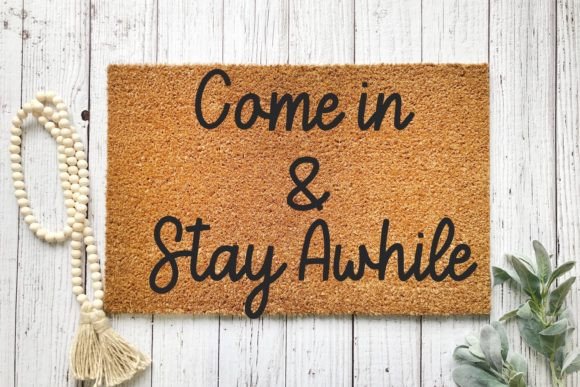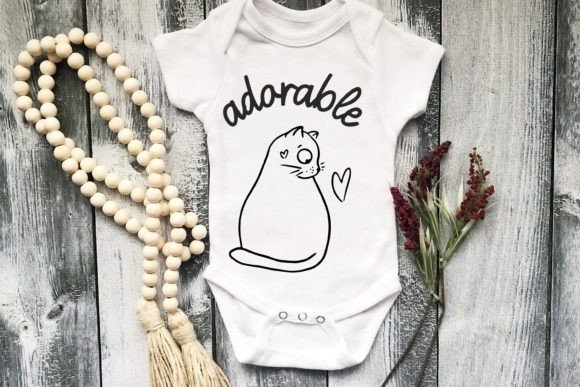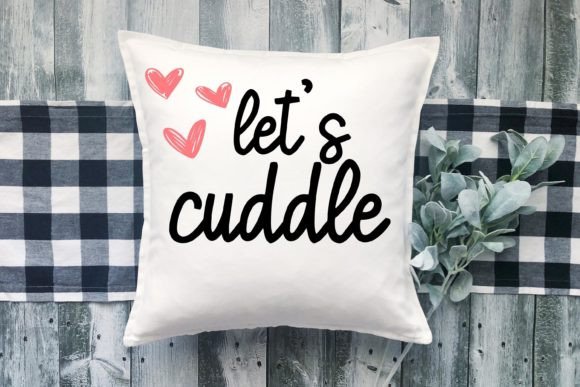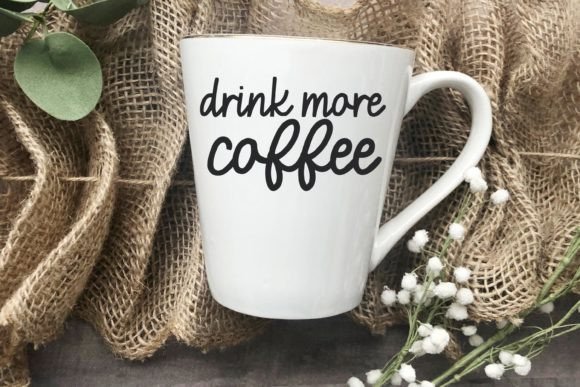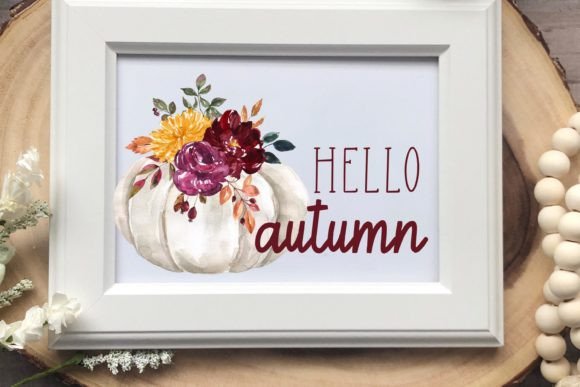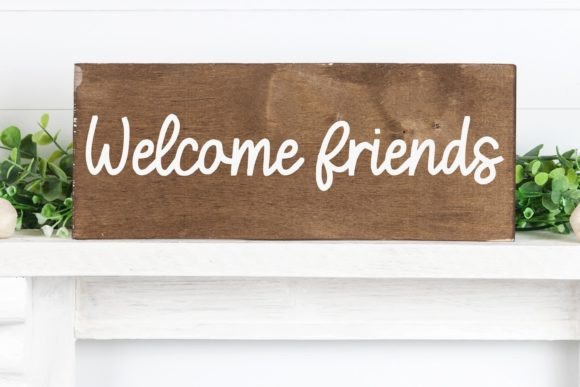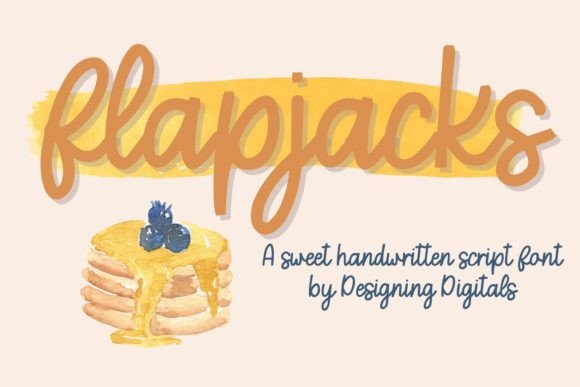
Introducing Flapjacks Font: The Sweetest Handwritten Script for Your Creative Projects
Are you on the lookout for a font that adds a touch of sweetness and playfulness to your designs? Look no further than Flapjacks Font, a delightful handwritten script font perfect for a variety of creative projects. In this article, we’ll dive into the world of Flapjacks Font, exploring its features, uses, and benefits for designers, crafters, and anyone looking to add a dash of fun to their work.
What is Flapjacks Font?
Flapjacks Font is a sweet, handwritten script font designed to bring a smile to your face. Its playful, cursive strokes and charming letterforms make it an ideal choice for projects that require a personal touch. Whether you’re creating fun logos, greeting cards, t-shirt designs, stickers, or social media graphics, Flapjacks Font is sure to add a touch of whimsy and delight.
Key Features of Flapjacks Font
- Handwritten script font: Flapjacks Font boasts a beautiful, handwritten script style that’s perfect for adding a personal touch to your designs.
- Playful and fun: With its curly strokes and charming letterforms, Flapjacks Font is sure to bring a smile to your face and add a dash of fun to your projects.
- Versatile: Flapjacks Font is suitable for a wide range of creative projects, from logos and greeting cards to t-shirt designs, stickers, and social media graphics.
- Easy to read: Despite its playful nature, Flapjacks Font remains easy to read, making it perfect for use in both digital and print materials.
Uses for Flapjacks Font
Flapjacks Font is a versatile font that can be used in a variety of creative projects, including:
- Fun logos: Add a touch of whimsy to your brand’s logo with Flapjacks Font, perfect for businesses that want to convey a playful and approachable image.
- Greeting cards: Create one-of-a-kind greeting cards for special occasions, such as birthdays, weddings, and holidays.
- T-shirt design: Design eye-catching t-shirts with Flapjacks Font, perfect for casual wear or as a promotional item.
- Stickers: Add a touch of fun to your stickers with Flapjacks Font, great for laptops, water bottles, or any other surface.
- Social media: Use Flapjacks Font to create engaging social media graphics, such as Instagram posts, Facebook headers, or Twitter graphics.
- Craft projects: Incorporate Flapjacks Font into your craft projects, such as scrapbooking, journaling, or handmade cards.
Benefits of Using Flapjacks Font
So, why choose Flapjacks Font for your creative projects? Here are just a few benefits:
- Adds a personal touch: Flapjacks Font’s handwritten script style adds a personal touch to your designs, making them more relatable and engaging.
- Stand out from the crowd: With its playful and whimsical nature, Flapjacks Font can help your designs stand out from the crowd and grab attention.
- Versatile: Flapjacks Font can be used in a wide range of creative projects, making it a great addition to your font library.
In conclusion, Flapjacks Font is a sweet and playful handwritten script font perfect for adding a touch of fun to your creative projects. With its versatile nature, ease of use, and charming letterforms, Flapjacks Font is sure to become a favorite in your font library. So why wait? Download Flapjacks Font today and start creating delightful designs that bring a smile to people’s faces!